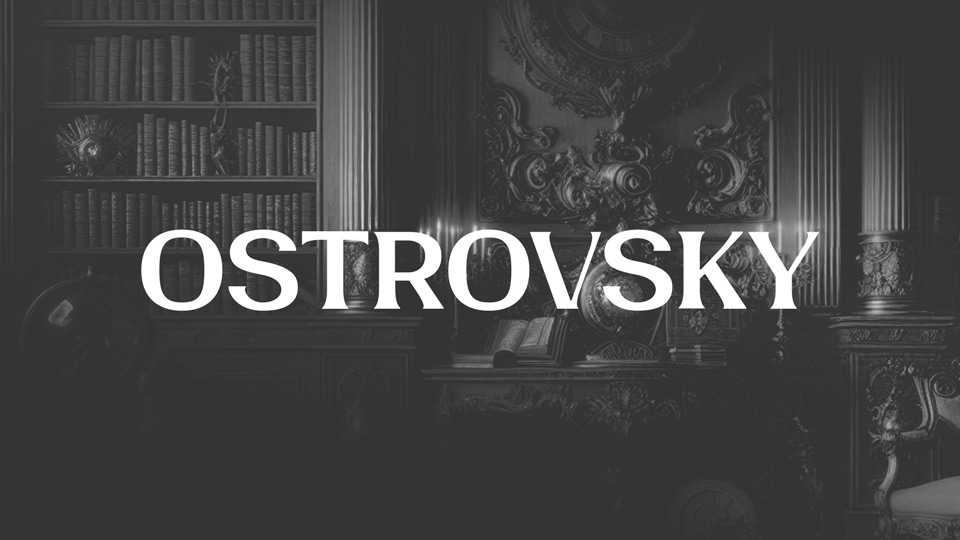
Download Ostrovsky font, a vintage serif typeface inspired by the weathered charm of old street signages. The font is crafted with classic serifs and subtle imperfections, evoking nostalgia of craftsmanship and authenticity.